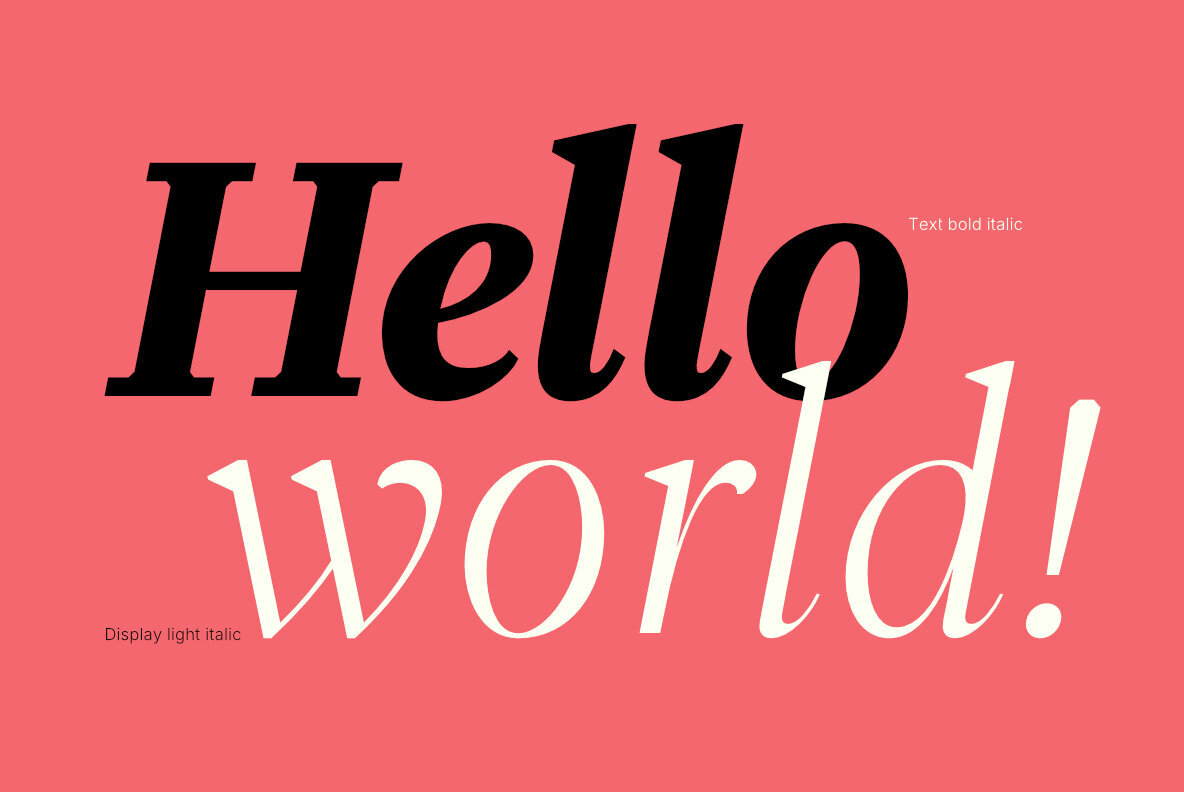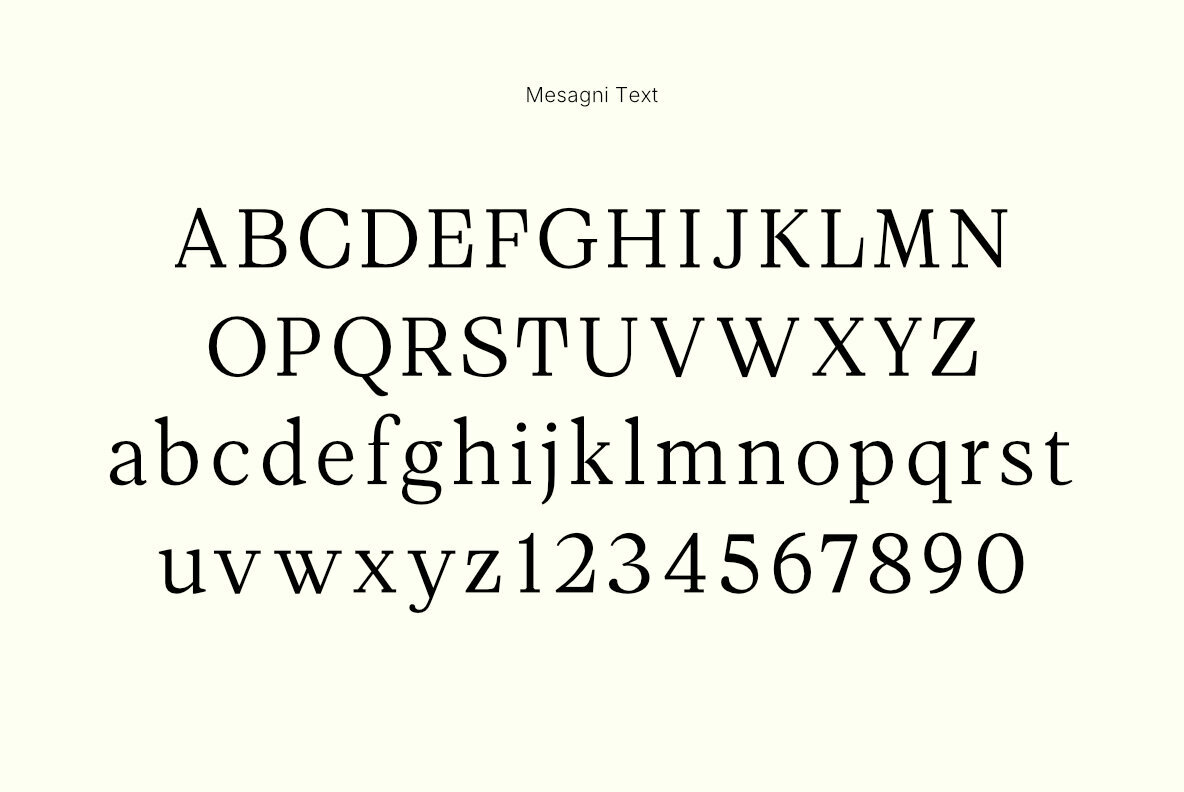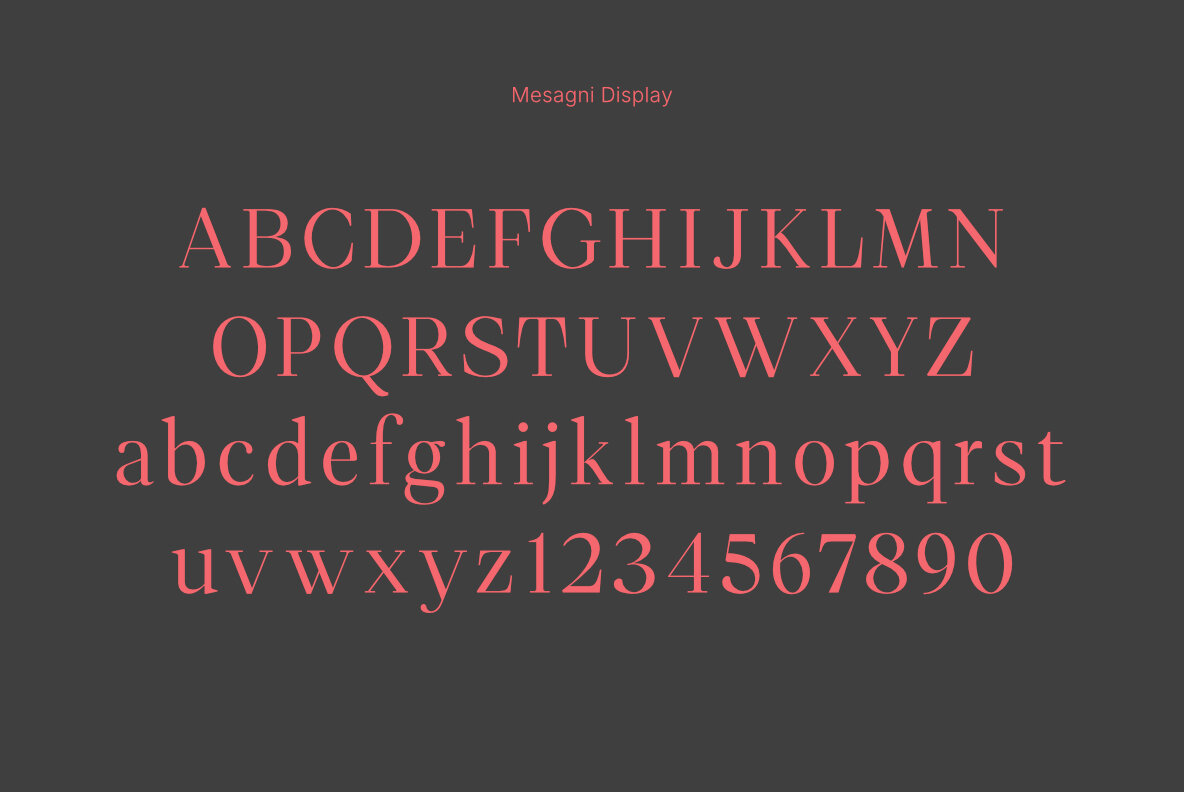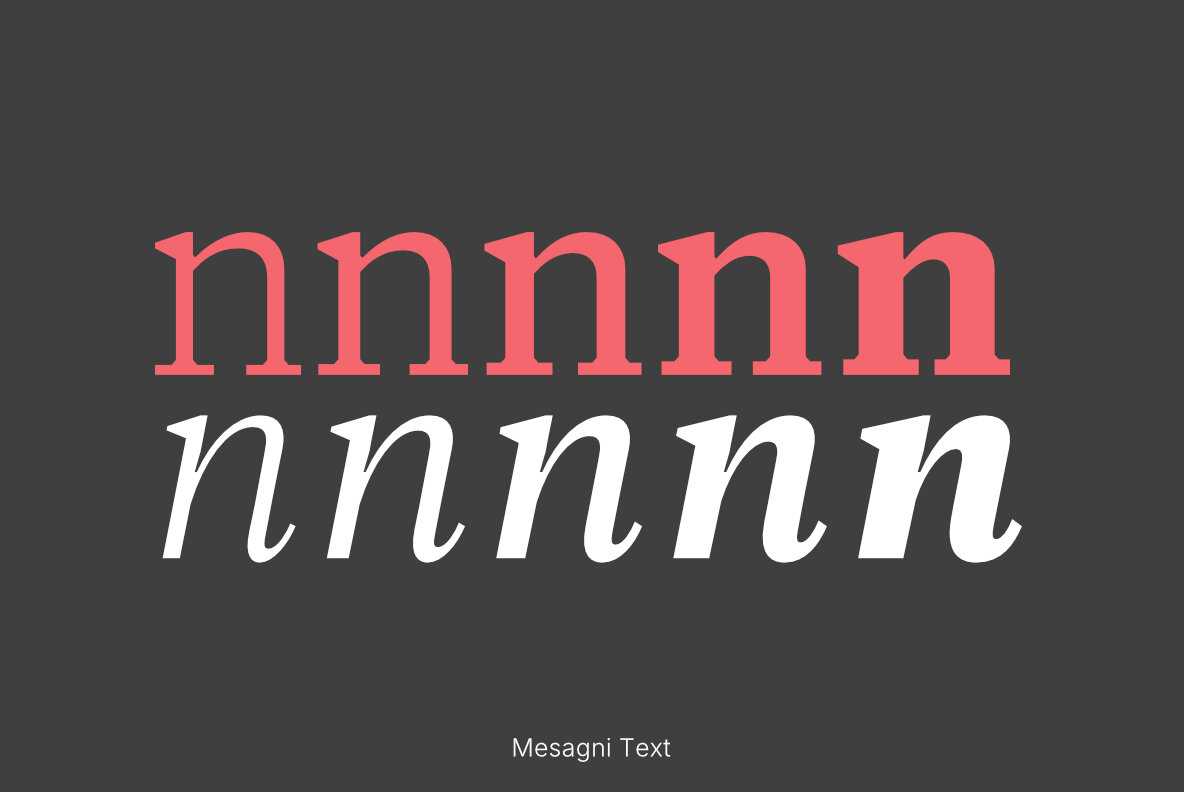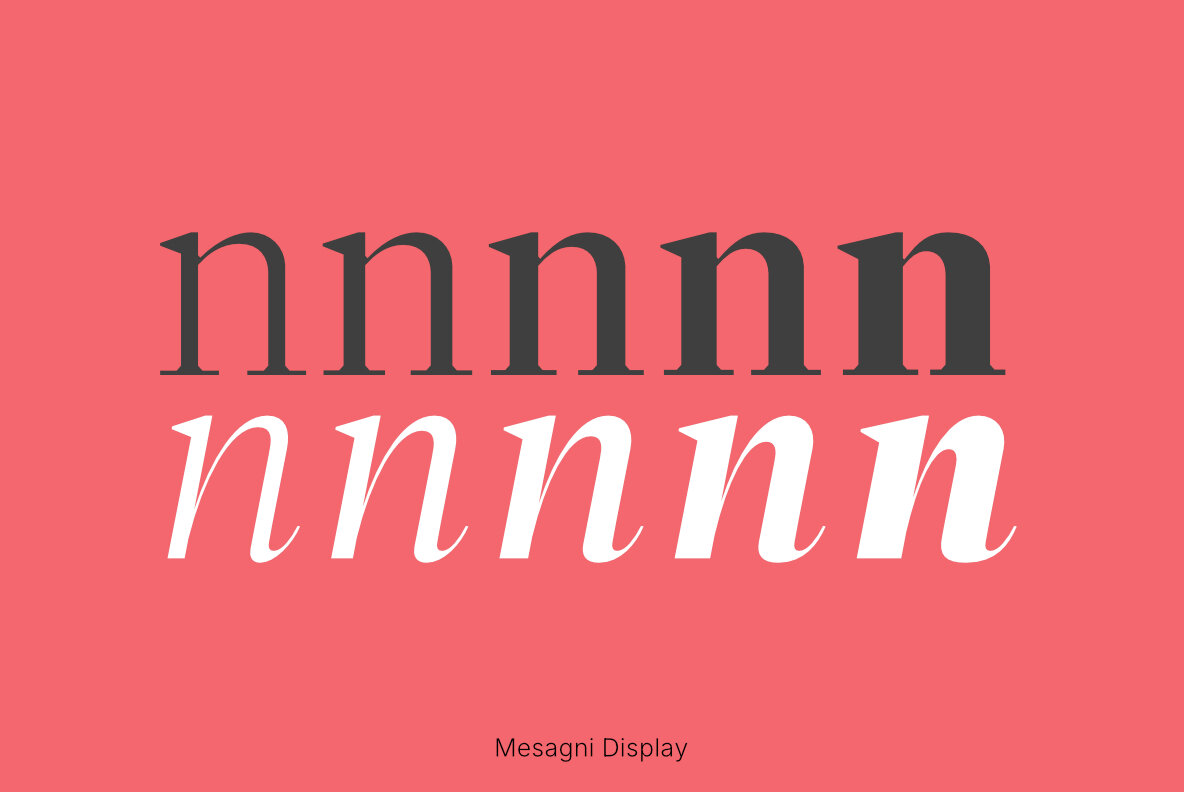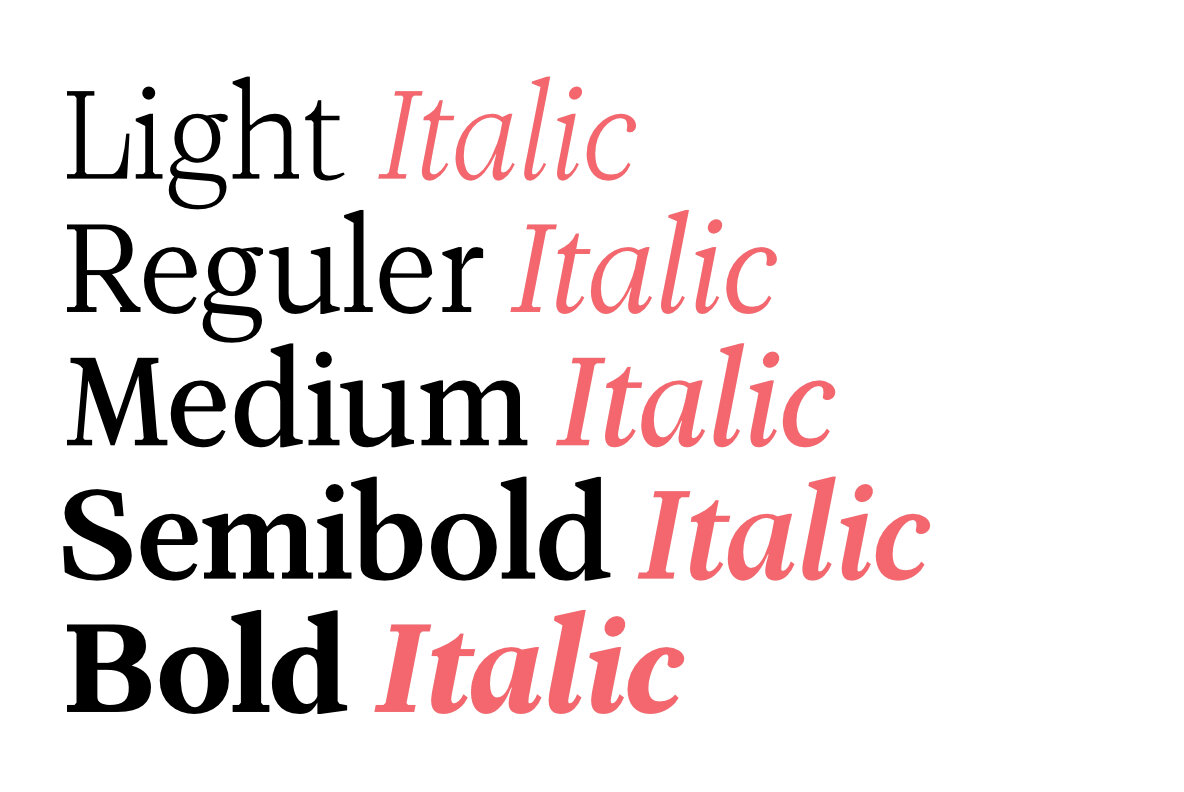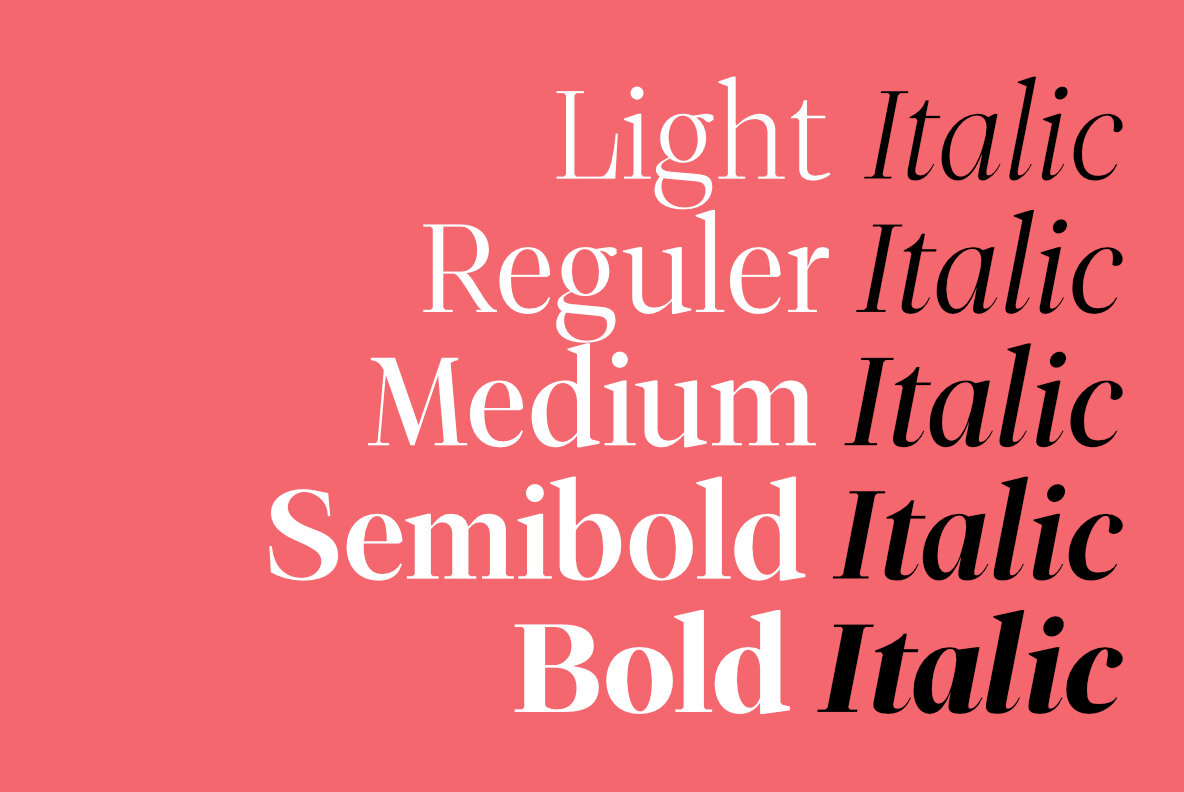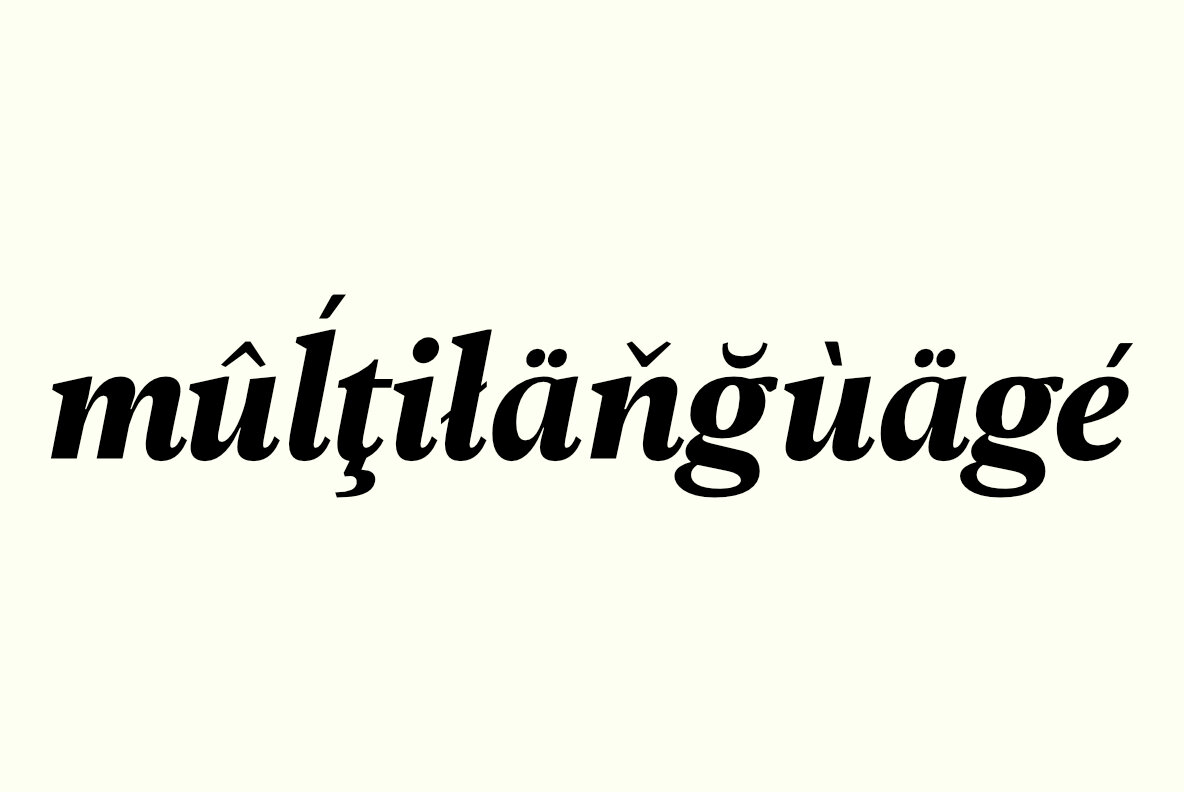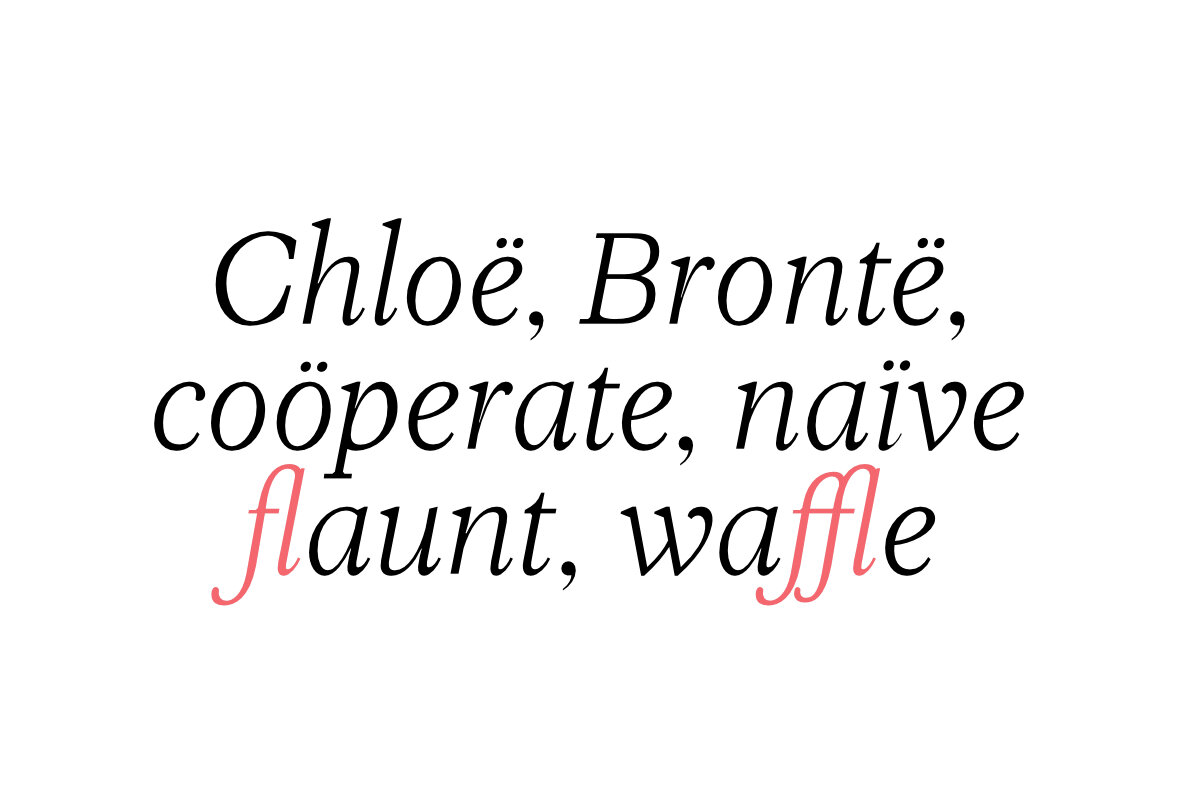
Mesagni Font
Mesagni is an editorial serif display font optimized for both headlines and body text. This typeface offers 5 weight sizes, making it an ideal choice for magazines, newspapers, branding, and digital publications.Mesagni: Versatile Editorial Serif